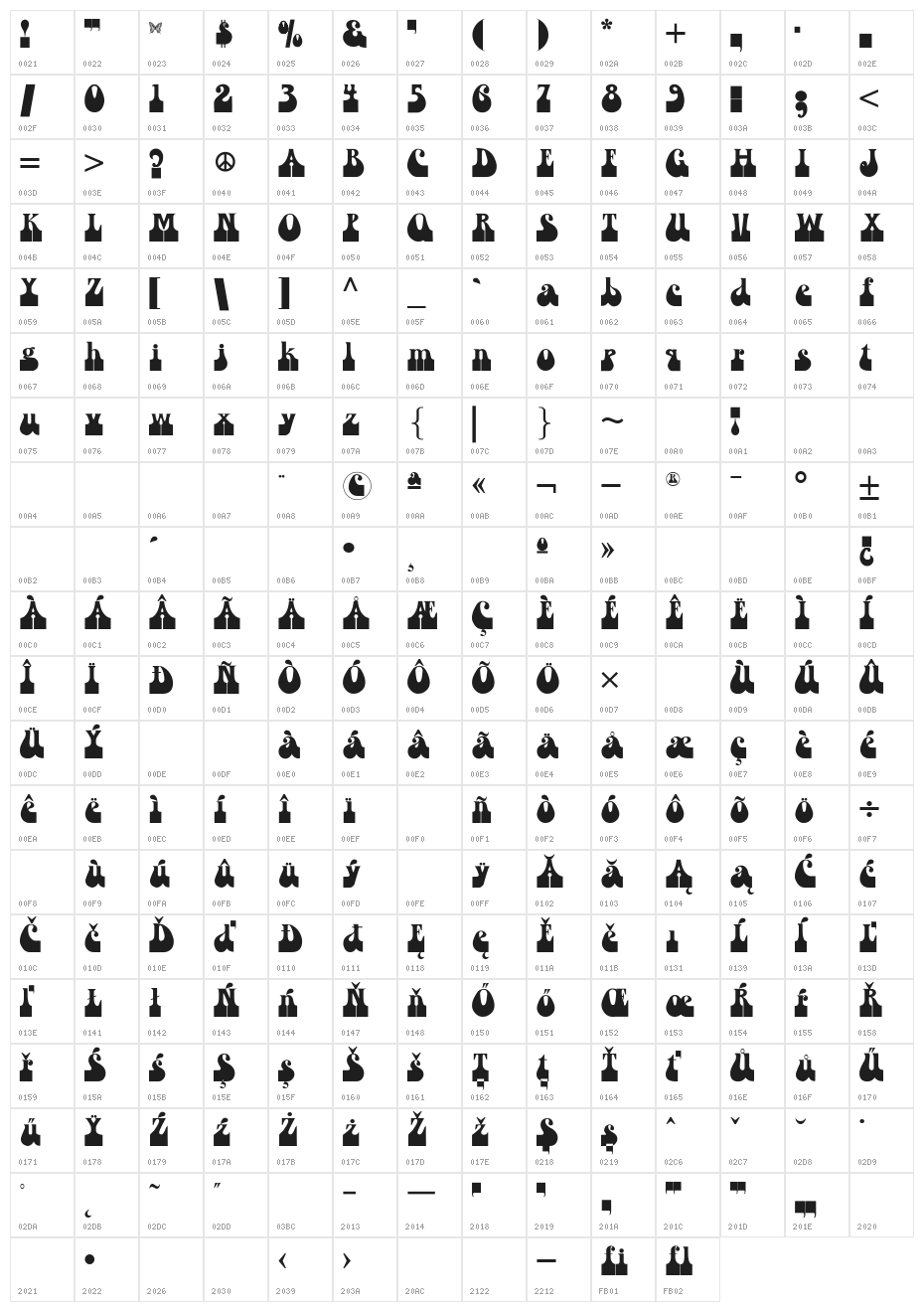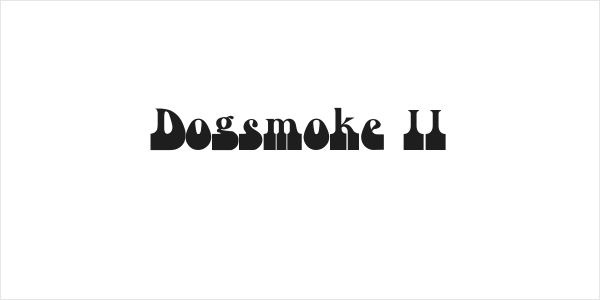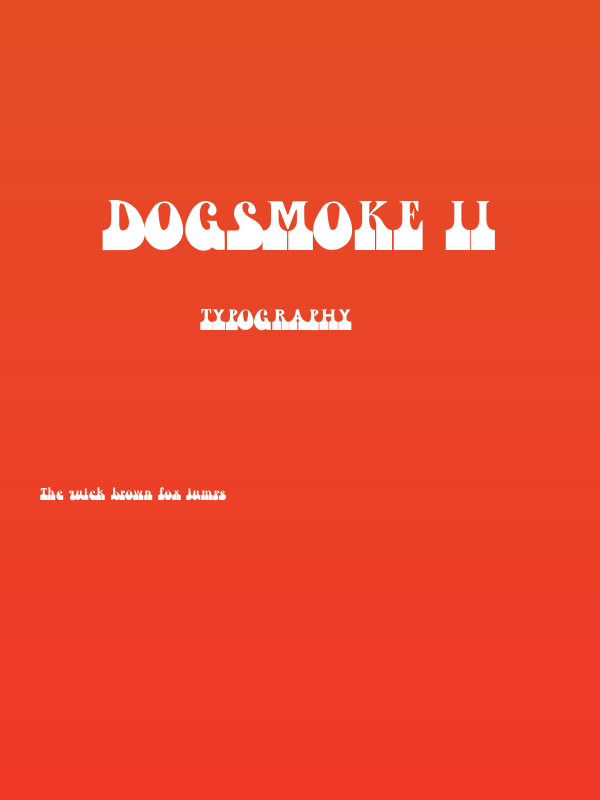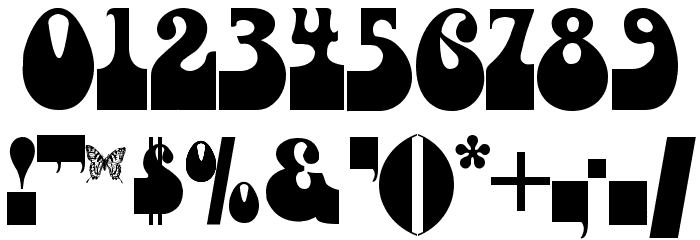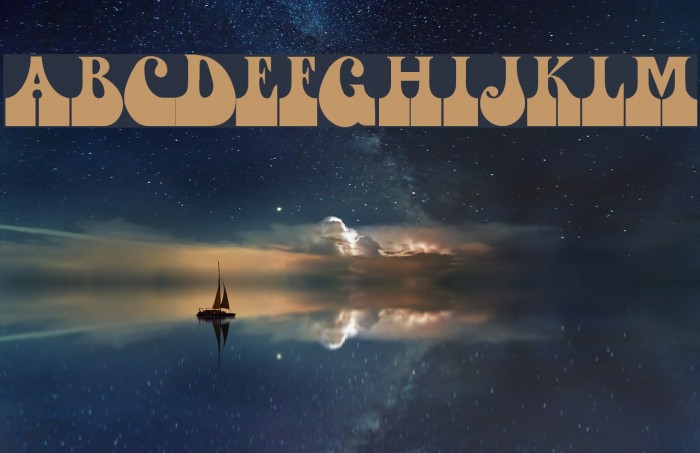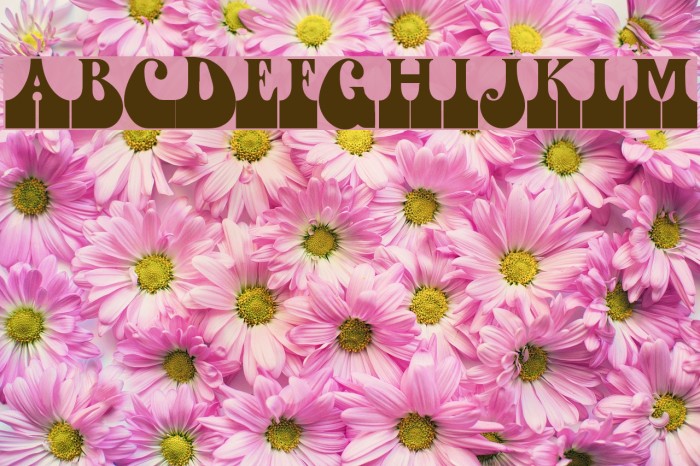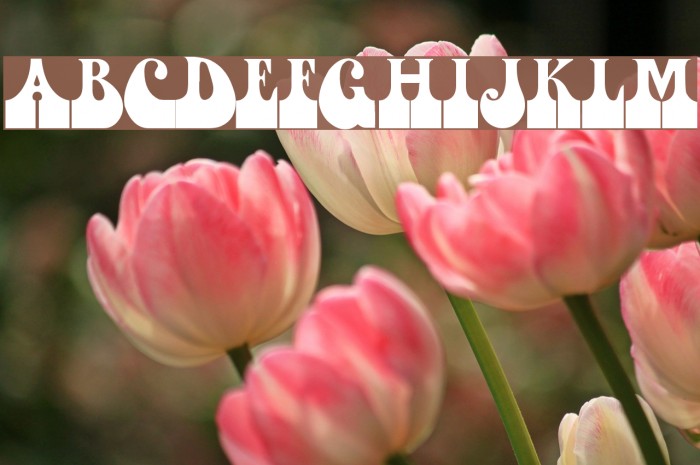
Dogsmoke II Font
Dogsmoke II Description
This font features a bold and dramatic style with high contrast between thick and thin strokes. The characters are uniquely designed with a combination of geometric shapes and curves, creating a visually striking appearance. The uppercase letters are particularly distinctive, with sharp angles and rounded elements that give them a modern yet playful look. The lowercase letters maintain the same boldness, with some characters having unexpected curves and cuts that add to the font's uniqueness. The numbers and special characters follow the same design principles, ensuring consistency throughout the typeface. This font is ideal for making a statement and capturing attention.